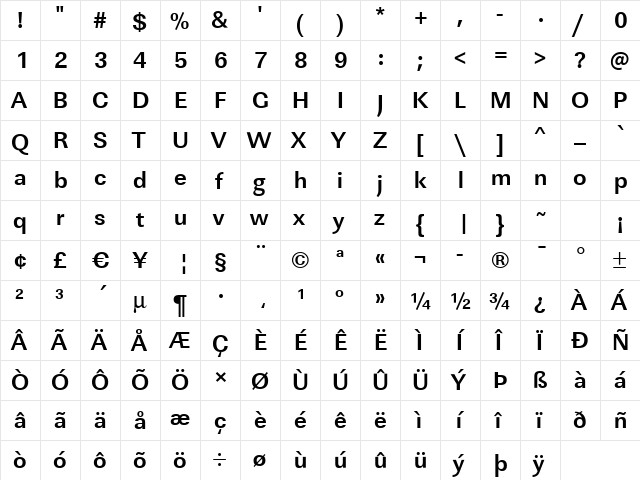
LinearStd Bold Font Preview
LinearStd Bold
Design Context for LinearStd Typeface
LinearStd takes a measured approach to typography — its balanced proportions and neutral character make it a reliable workhorse for both digital and print work. Its bold stroke weight gives it real presence on the page.